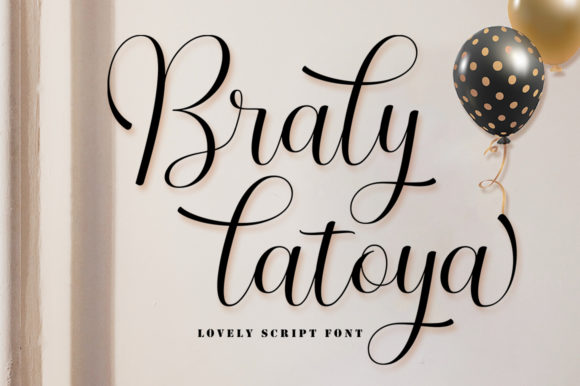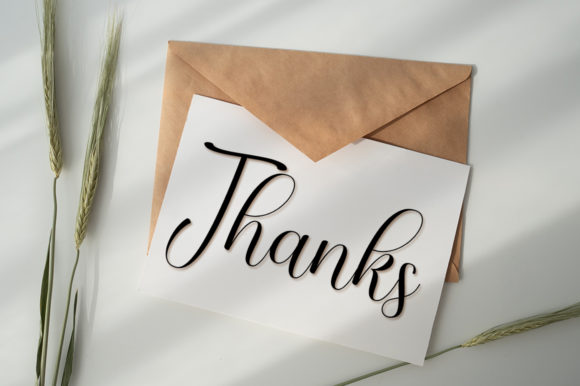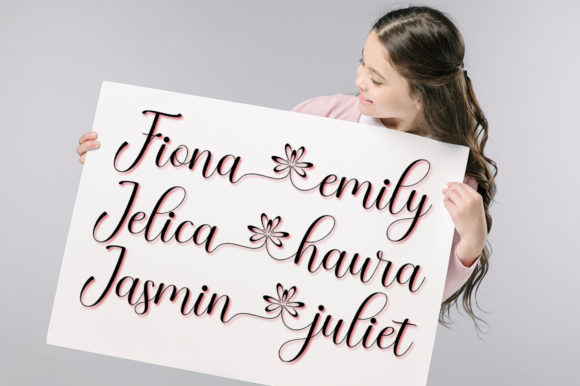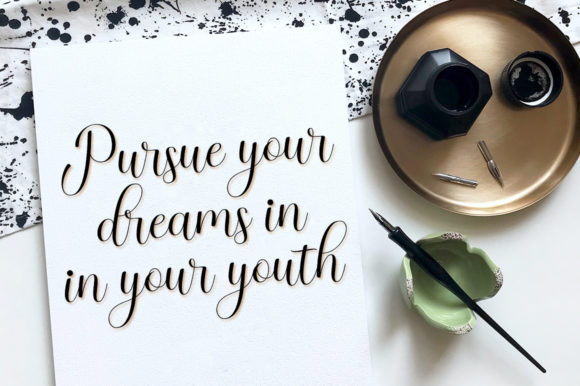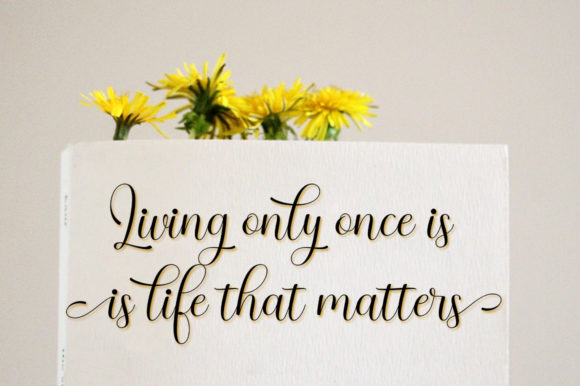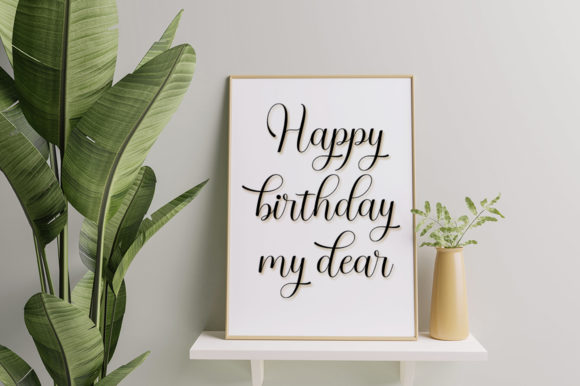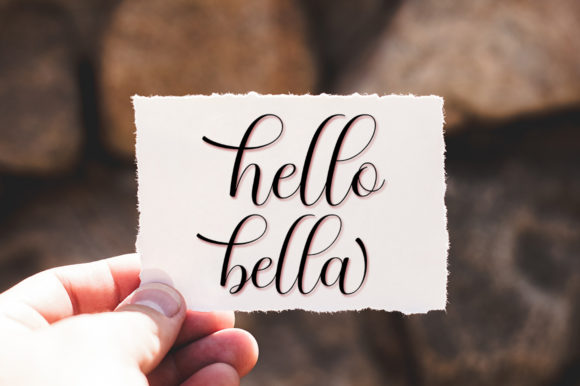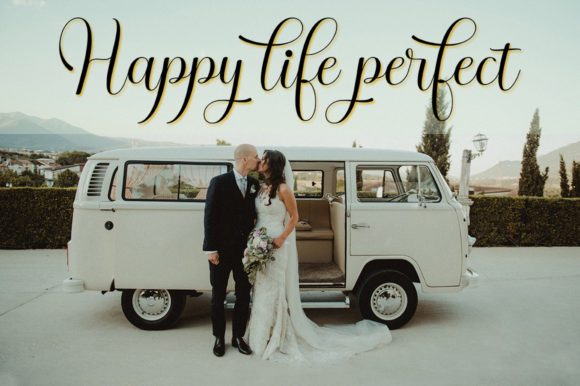
About Braly Latoya Font
Braly Latoya is a delicate and elegant handwritten font. Its distinct and well rounded letters make this font a masterpiece. This font is PUA encoded which means you can access all of the glyphs and swashes with ease!